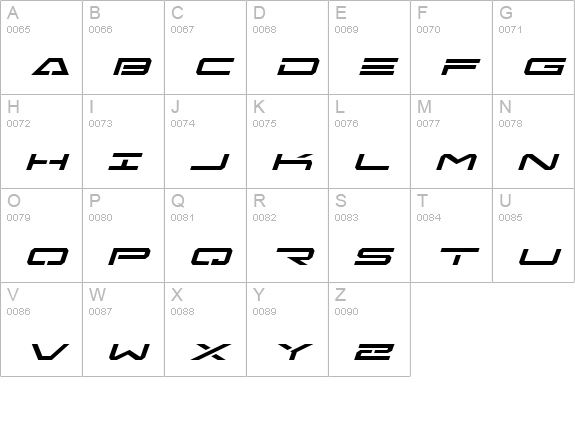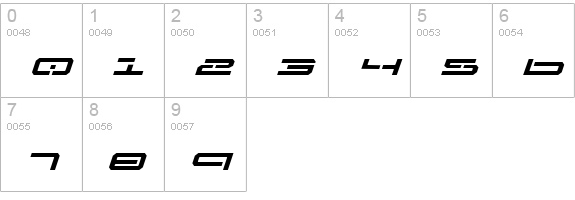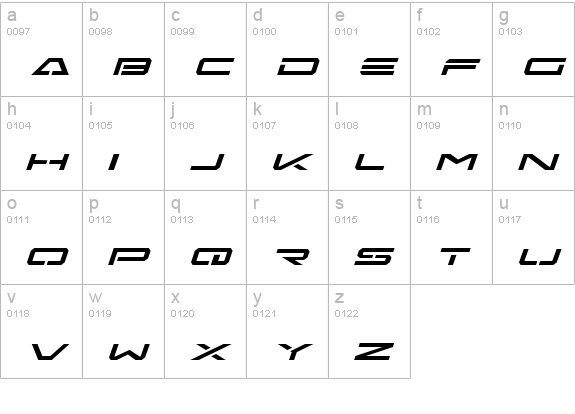
Free Agent Expanded Italic is a distinctive, extended-width, italic variant in the Free typeface family \xE2\x80\x94 well suited to design and typography projects.
Introducing Free Agent Expanded Italic, a dynamic and modern font designed to make a statement. With its sleek and stylish appearance, this font exudes confidence and sophistication. The italicized design adds a touch of elegance and flair, making it perfect for projects that require a contemporary and artistic touch. Free Agent Expanded Italic is a versatile typeface that can be used for a wide range of design projects, from branding and advertising to editorial and web design. Its clean lines and fluid curves give it a unique and eye-catching look that is sure to capture the attention of viewers. Best of all, Free Agent Expanded Italic is available for free download at FontsMarket.com. This means you can access this stunning font without any cost, making it a valuable addition to your font library. Don't miss out on the opportunity to enhance your designs with the striking beauty of Free Agent Expanded Italic.